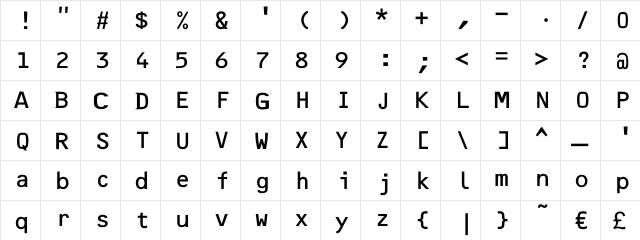
Dumfries OCR Regular
Design Context for Dumfries OCR Typeface
Dumfries OCR is a composed and adaptable typeface that performs quietly and consistently across a wide range of design contexts.